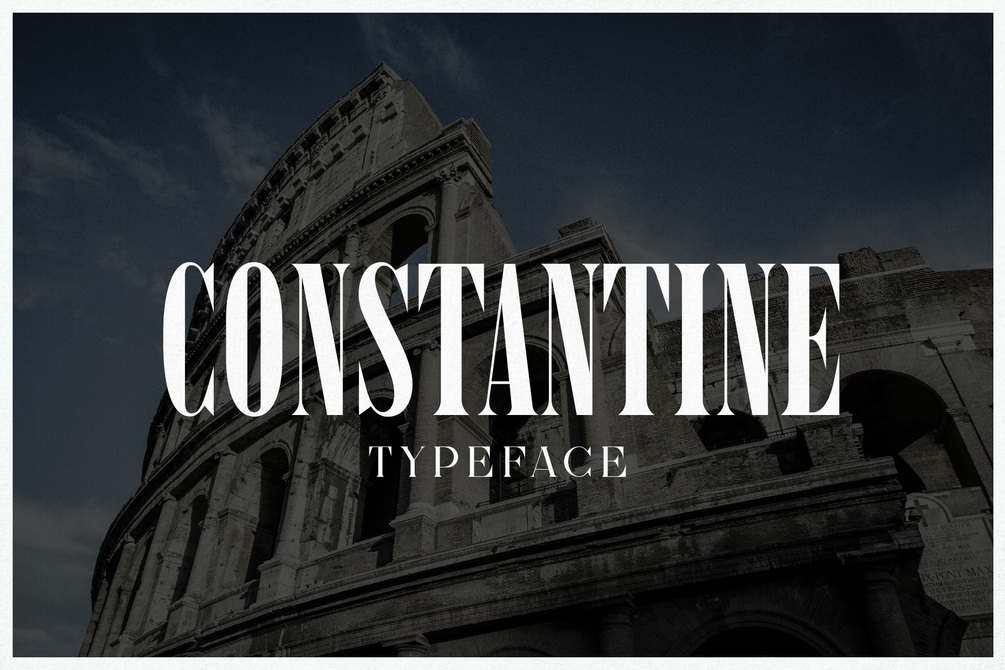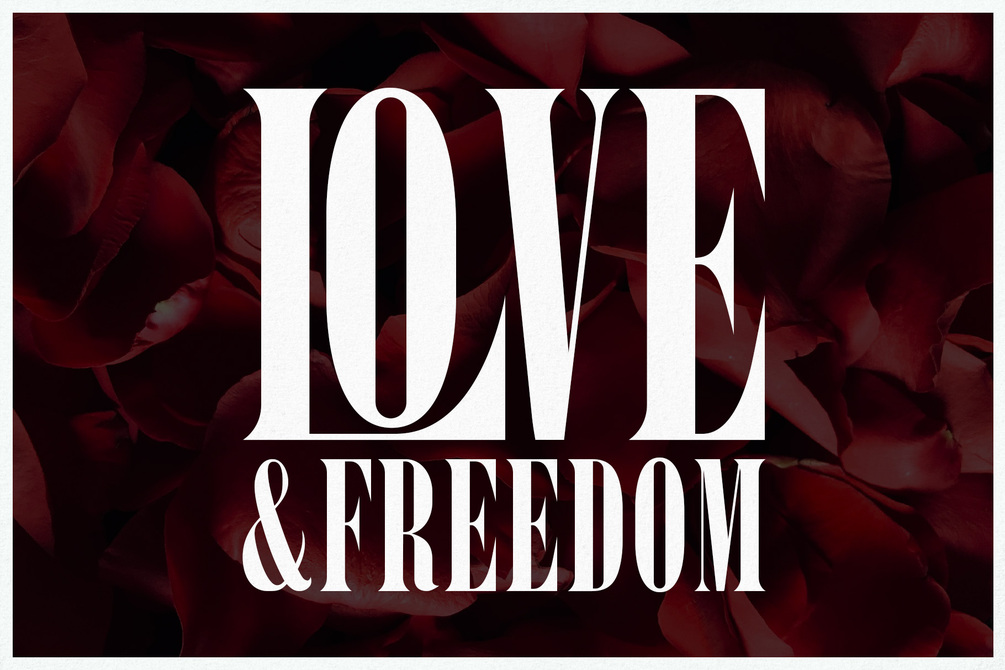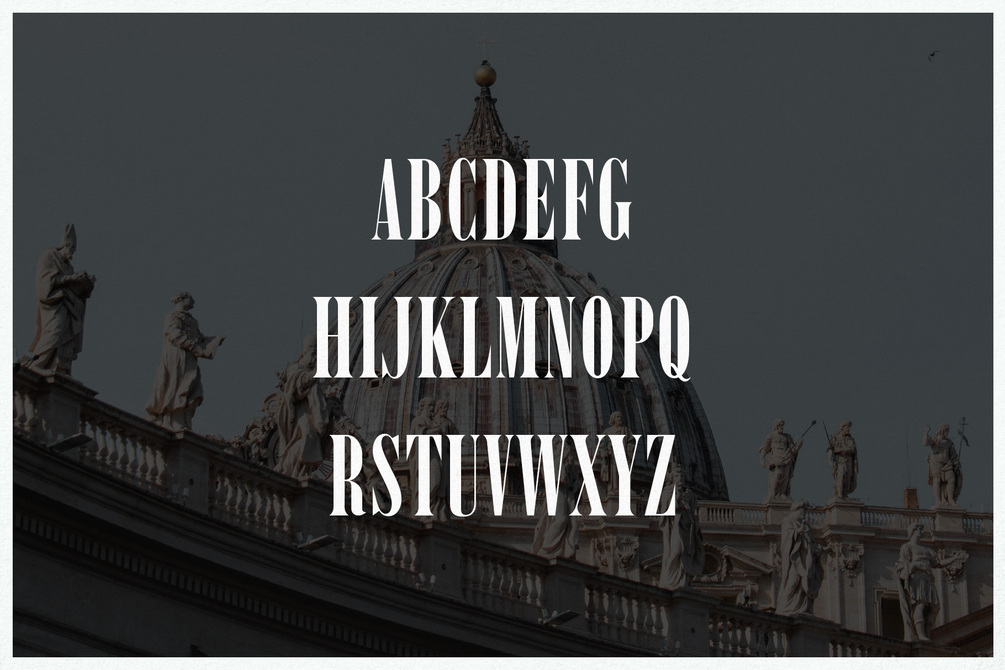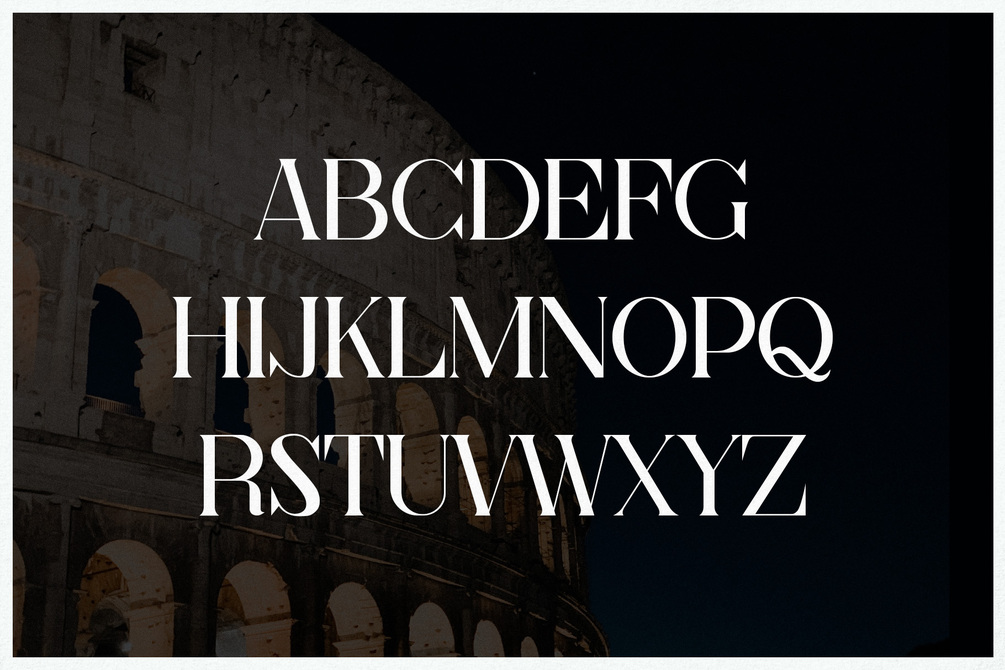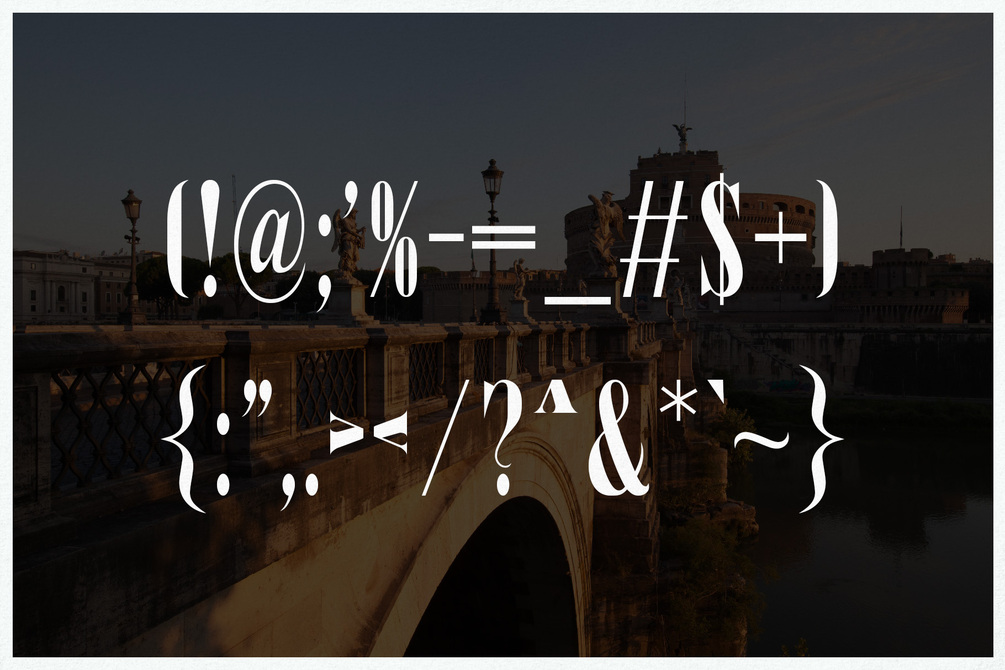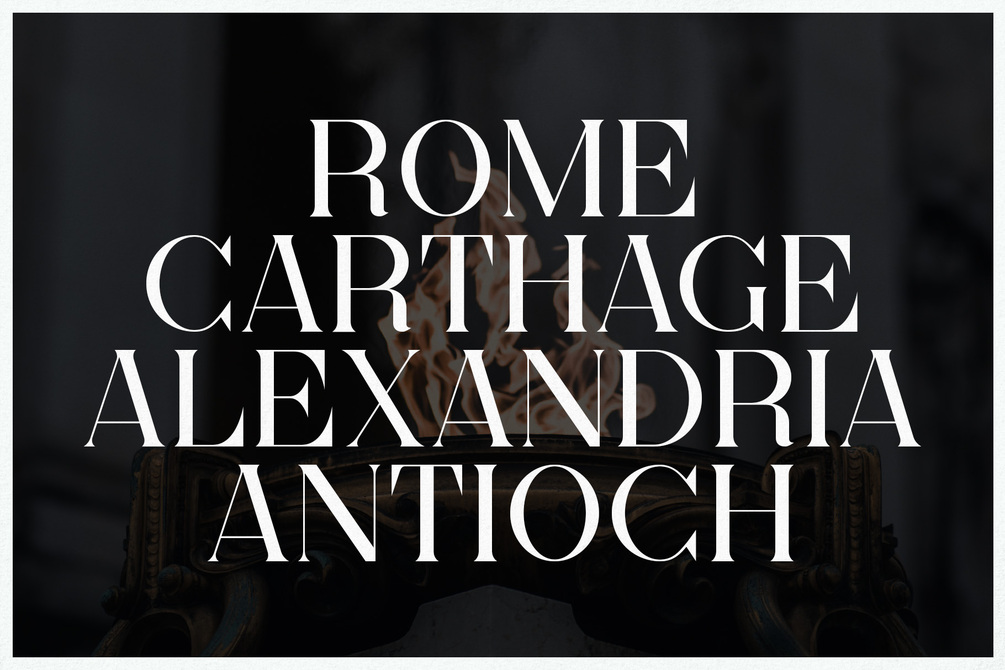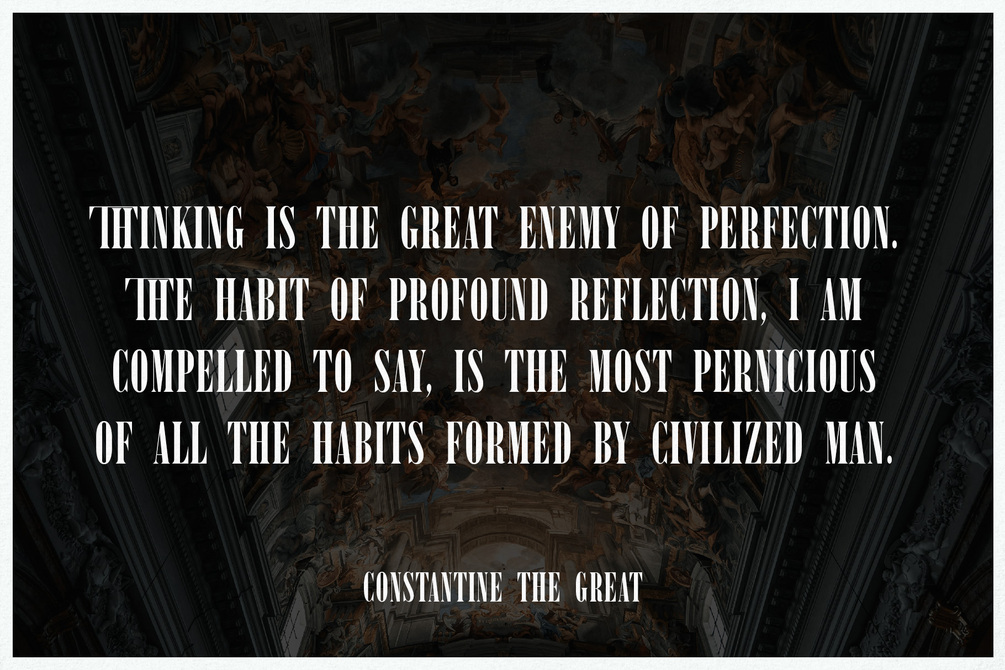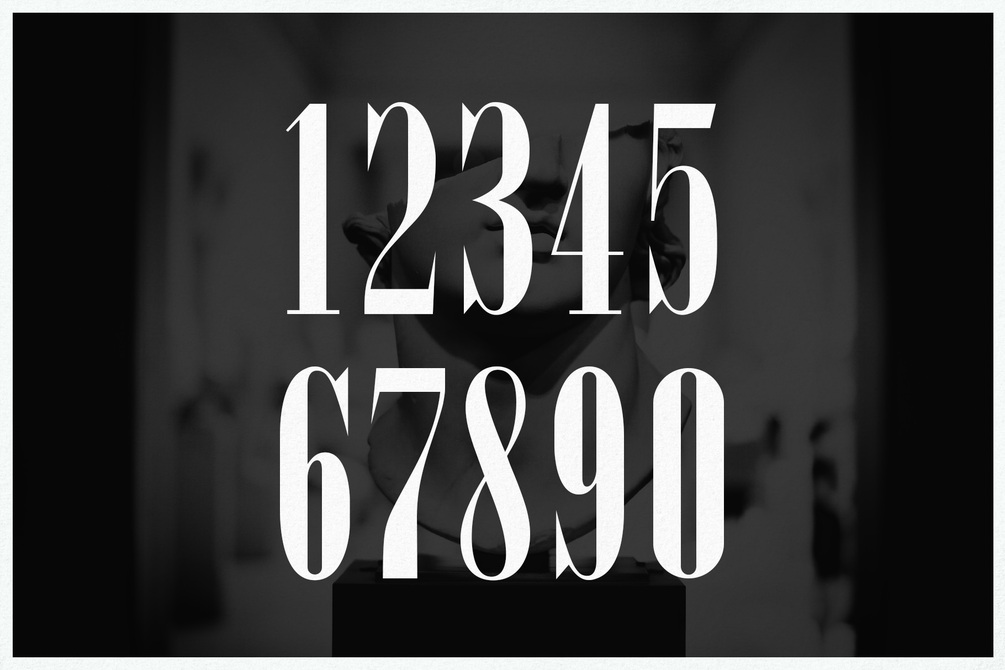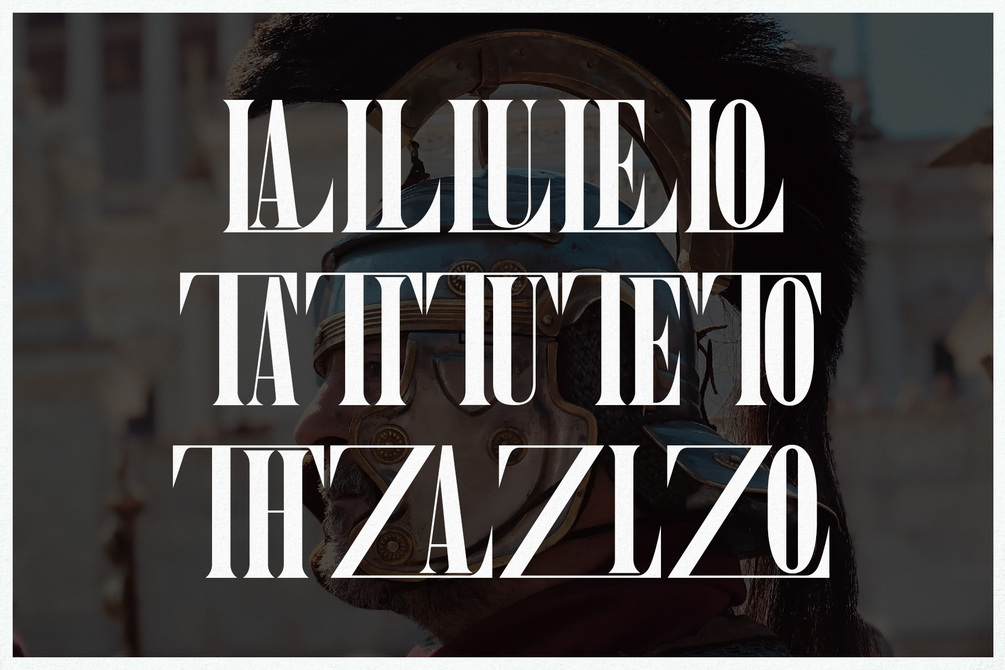
Constantine - Luxury Display Serif
Constantine is an elegant and classy display serif font inspired by Constantine the Great, a Roman emperor from 306 to 337ad. The font comes in two flavors thin/regular plus 14 beautiful ligatures. Thanks to its minimalist and classic nature, Constantine is perfect for branding, weddings, magazines, fashion, posters, quotes, books, social media, etc.